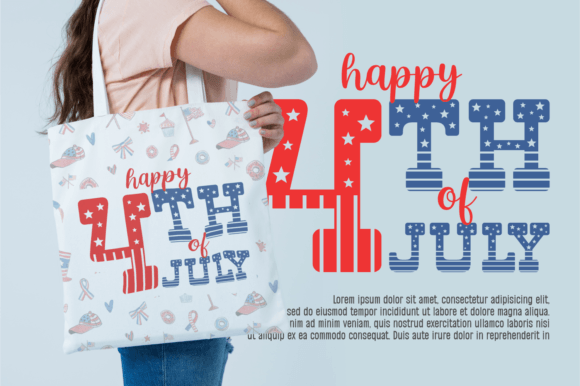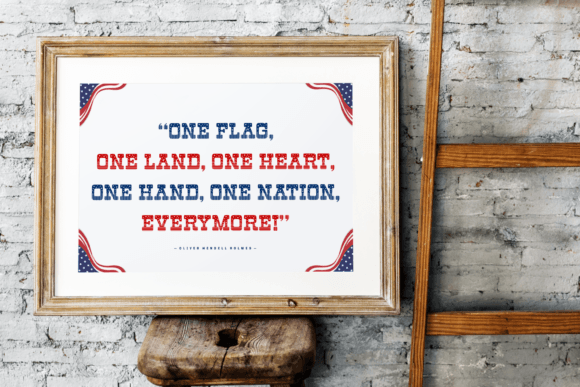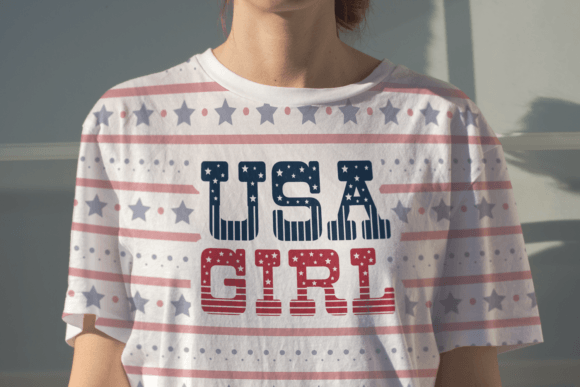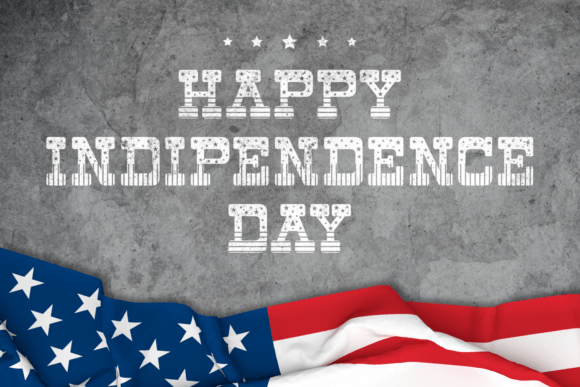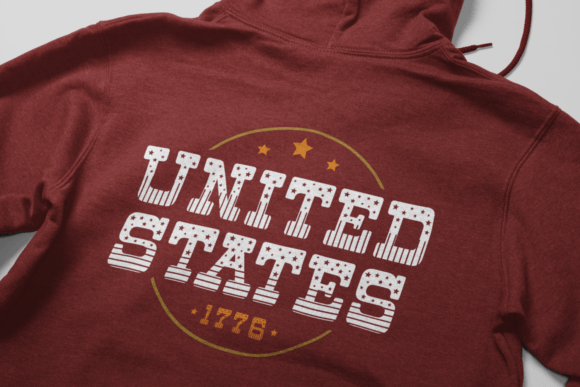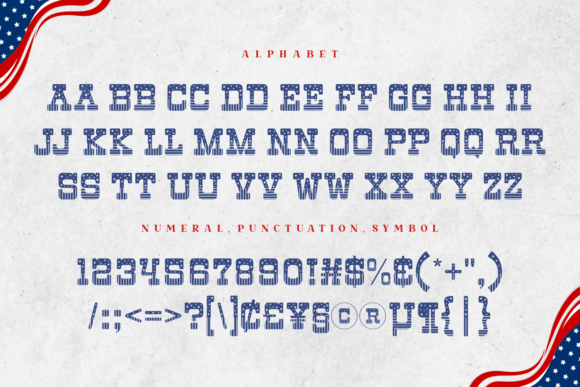
Introducing the Glory of Justice Font: A Symbol of Patriotism and Freedom
The Glory of Justice font is a stunning decorative typeface that embodies the spirit of American culture and patriotism. This beautiful font is perfect for designers and crafters looking to add a touch of national pride and identity to their projects. Whether you’re working on a design for Independence Day, Veterans Day, Memorial Day, or any other project that celebrates American history and values, the Glory of Justice font is an excellent choice.
A Font that Captures the Essence of Patriotism
The Glory of Justice font is designed to evoke the sense of freedom, unity, and patriotism that is deeply ingrained in American culture. Its distinctive design serves as a visual reminder of the ideals and values that the American flag represents. With its bold and striking appearance, this font is sure to make a statement in any design project. Whether you’re creating headlines, banners, signage, or any other visual element, the Glory of Justice font is the perfect way to infuse a sense of national pride and identity into your work.
Perfect for Projects that Celebrate American Culture
The Glory of Justice font is specifically designed for projects that celebrate American culture, history, or events. Its decorative style is perfect for creating impactful headlines, banners, or signage that make a lasting impression. Designers and crafters can use this font to create stunning visual elements for a variety of projects, including:
- Independence Day celebrations
- Veterans Day tributes
- Memorial Day commemorations
- American history-themed projects
- Patriotic designs and decorations
Adding a Touch of National Pride to Your Designs
The Glory of Justice font is an excellent choice for designers and crafters who want to add a touch of national pride and identity to their projects. Its bold and distinctive design makes it perfect for creating visual elements that stand out and make a statement. With this font, you can create stunning designs that evoke the sense of freedom, unity, and patriotism that is deeply ingrained in American culture.
Key Features of the Glory of Justice Font
The Glory of Justice font has several key features that make it an excellent choice for designers and crafters. Some of its key features include:
- Decorative and bold design
- Perfect for projects that celebrate American culture and history
- Great for creating impactful headlines, banners, and signage
- Evokes the sense of freedom, unity, and patriotism
- Distinctive design serves as a visual reminder of American values
Tips for Using the Glory of Justice Font
Here are some tips for using the Glory of Justice font in your design projects:
- Use it for headlines and titles to make a bold statement
- Pair it with other fonts to create a unique and striking design
- Use it for signage and banners to create a lasting impression
The Glory of Justice font is a stunning decorative typeface that embodies the spirit of American culture and patriotism. Its bold and distinctive design makes it perfect for projects that celebrate American history and values. Designers and crafters can use this font to create stunning visual elements that evoke the sense of freedom, unity, and patriotism that is deeply ingrained in American culture. Whether you’re working on a design for Independence Day, Veterans Day, Memorial Day, or any other project that celebrates American culture, the Glory of Justice font is an excellent choice.